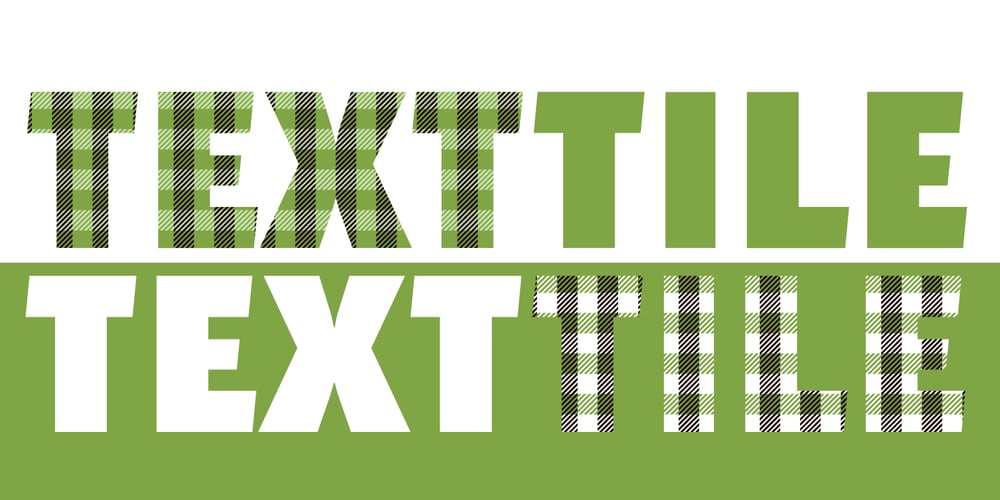
Text Tile Font Family was designed by Neil Patel and published by Tetradtype. Text Tile contains 8 styles and family package options. TextTile is a system of heavy sans titling faces which can be utilized to carry a repeating chromatic pattern across words and letters. It stands apart from other chromatic faces, where layered effects typically interact only within each letter and do not carry through from one letter to another. The pattern repetition across letters of varying widths is achieved through OpenType substitution, using conditional alternates for each successive letter to allow for a seamless appearance across words, regardless of letter combinations. Though the pattern exists on a strict grid and the letters’ widths and spacing must be highly regular in order to preserve the pattern repeat, the letterforms themselves are not rigid; rather, they appear organic, lively. The initial release includes patterns inspired by a classic buffalo plaid, separated into its horizontal and vertical components to maximize the creative possibilities for layering one-, two-, three-, and even four-color plaid patterns. Kits are available to produce the plaid pattern in detail—with overlapping diagonal hatching fully visible—or as a simplified version in which transparency can be used to simulate plaid or to create a checkered or striped effect. The TextTile family of fonts is a flexible canvas for mixing and matching a broad array of patterns to create a unique look. Check back for more pattern releases and take a look at the online specimen to see what is possible with the current offerings. Usage Notes For best results use an OpenType aware program. Enabling Contextual Alternates will ensure pattern alignment. For patterns that are made up of vertical stripes or columns using the Stylistic Alternate/Stylistic Set 1 will shift the columns. Stylistic Set 2 will change 1-0 into blocks of patterns.